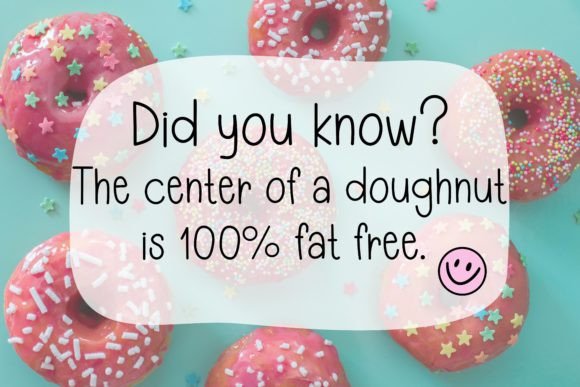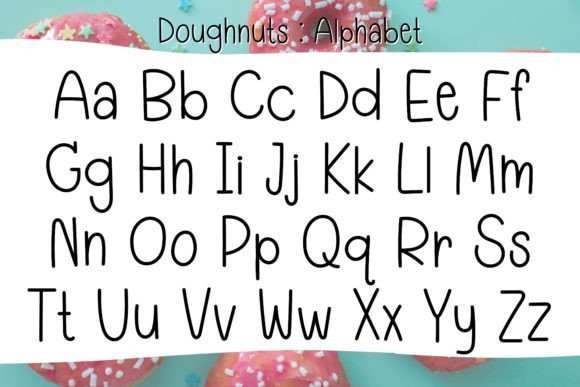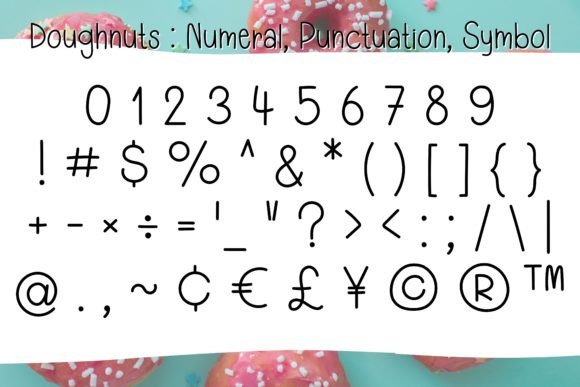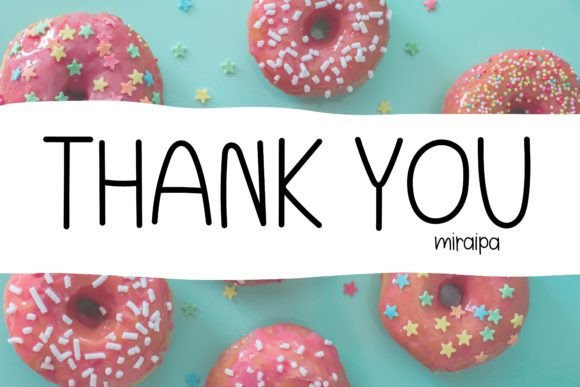
Doughnuts Font: Add a Friendly Touch to Your DIY Projects
Are you looking for a font that can add a personal and friendly touch to your DIY projects? Look no further than the Doughnuts Font! This beautiful handwritten font is designed to bring a sense of warmth and approachability to any project, making it perfect for crafters, designers, and anyone who loves to create.
What is Doughnuts Font?
Doughnuts Font is a carefully crafted handwritten font that exudes a friendly and lovely style. Its unique and charming lettering makes it an excellent choice for a wide range of projects, from personal planners and journals to party decorations, invitations, and more.
Perfect for Everyday Use
One of the best things about Doughnuts Font is its versatility. It’s perfect for everyday use in your diary planner or journal, adding a personal touch to your daily musings and reflections. The font’s friendly and approachable style makes it easy to read and write, making it an excellent choice for daily use.
Ideal for Special Projects
Doughnuts Font is also ideal for special projects, such as:
- Back to school projects: Add a fun and playful touch to your school-themed projects with Doughnuts Font.
- Wedding and party decorations: Use Doughnuts Font to create beautiful and personalized wedding and party decorations, such as invitations, banners, and more.
- Festivals and celebrations: Add a festive touch to your projects with Doughnuts Font, perfect for holidays, birthdays, and other celebrations.
- Posters and blogs: Use Doughnuts Font to create eye-catching posters and blog headers that are sure to grab attention.
- Clothing and accessories: Add a personal touch to your clothing and accessory designs with Doughnuts Font.
- Child-related designs: Doughnuts Font is perfect for creating adorable and fun designs for kids, such as children’s party invitations, nursery decor, and more.
- Greeting cards and social media posts: Use Doughnuts Font to create beautiful and personalized greeting cards and social media posts.
Why Choose Doughnuts Font?
So why choose Doughnuts Font for your DIY projects? Here are just a few reasons:
- Unique and charming lettering: Doughnuts Font has a unique and charming lettering style that’s sure to add a personal touch to your projects.
- Easy to read and write: The font’s friendly and approachable style makes it easy to read and write, making it perfect for everyday use.
- Versatile: Doughnuts Font is versatile and can be used for a wide range of projects, from personal planners and journals to party decorations and more.
- Perfect for designers and crafters: Doughnuts Font is perfect for designers and crafters who want to add a personal touch to their projects.
With Doughnuts Font, you’ll be able to create:
- Beautiful and personalized planners and journals
- Unique and eye-catching party decorations and invitations
- Adorable and fun designs for kids
- Stunning posters and blog headers
- Personalized greeting cards and social media posts
| Font Name | Doughnuts Font |
| Author | miraipa |
In conclusion, Doughnuts Font is a beautiful and versatile handwritten font that’s perfect for designers, crafters, and anyone who loves to create. Its friendly and lovely style makes it ideal for everyday use, and its unique and charming lettering makes it perfect for special projects. Add Doughnuts Font to your library today and bring a friendly touch to your DIY projects!